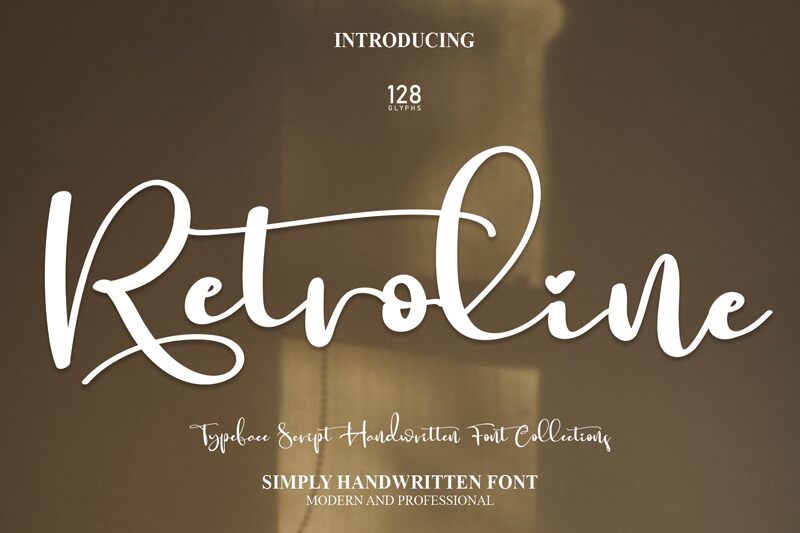
Retroline
Retroline, designed by Scratchones, is a trendy handwritten font that exudes coolness. With its semi-light weight, it strikes the perfect balance between elegance and playfulness. This font is ideal for projects that aim to capture a nostalgic vibe while adding a contemporary twist.
Use Retroline for vintage-inspired logos and branding materials to infuse your designs with an authentic retro feel. Its versatile style also makes it suitable for creating eye-catching social media graphics, album covers, or even hipster-themed invitations. Let Retroline bring a touch of nostalgia to your creative endeavors!